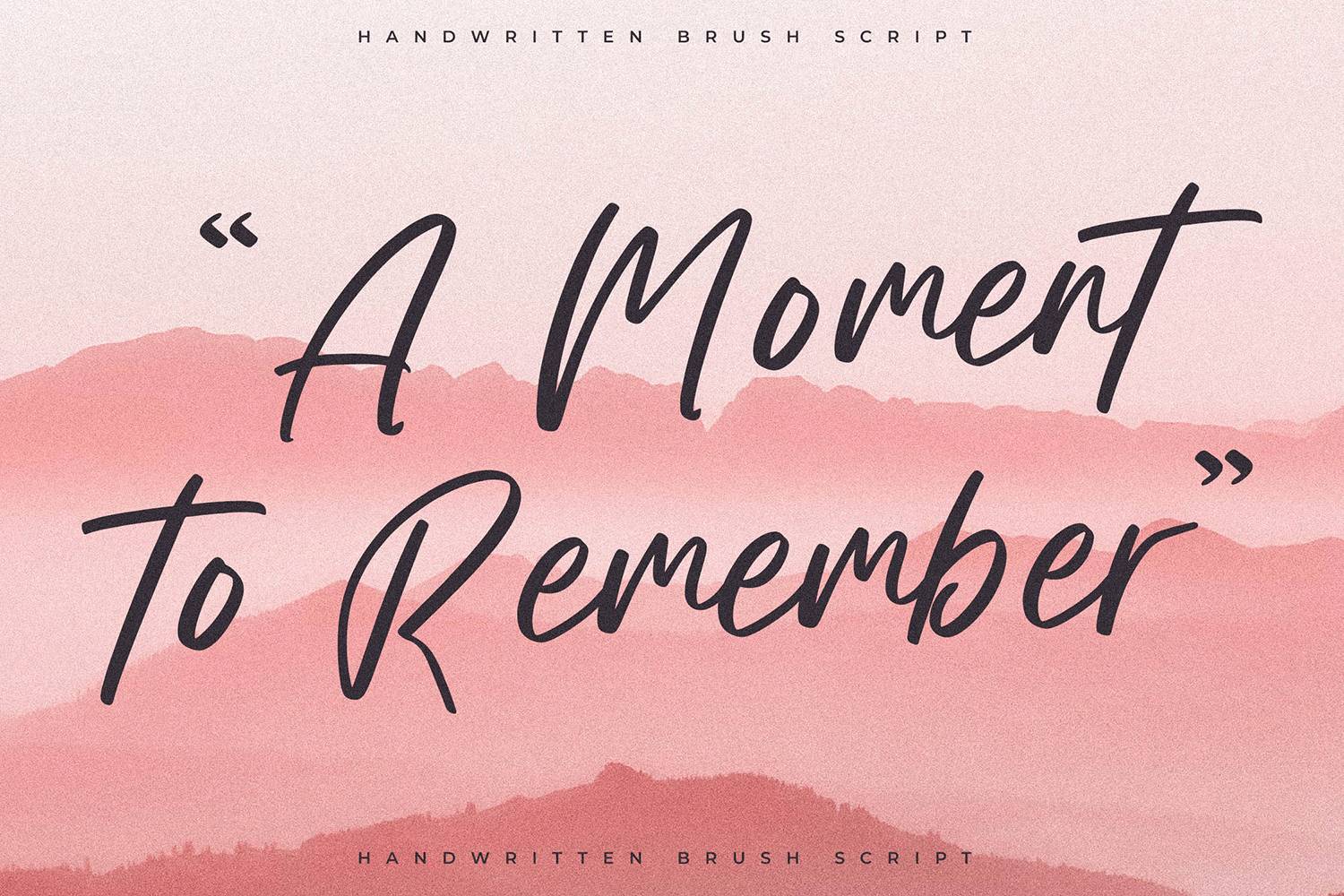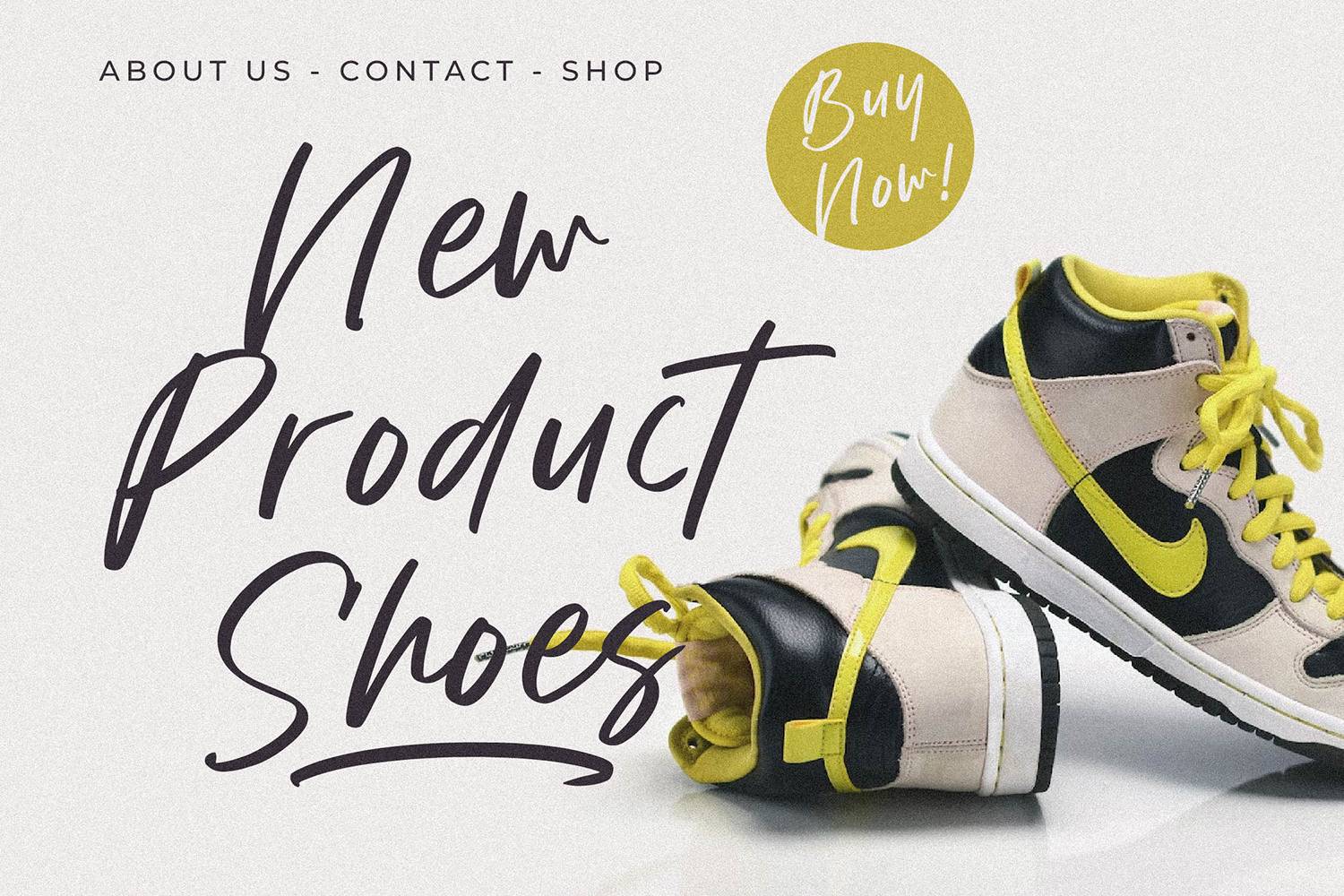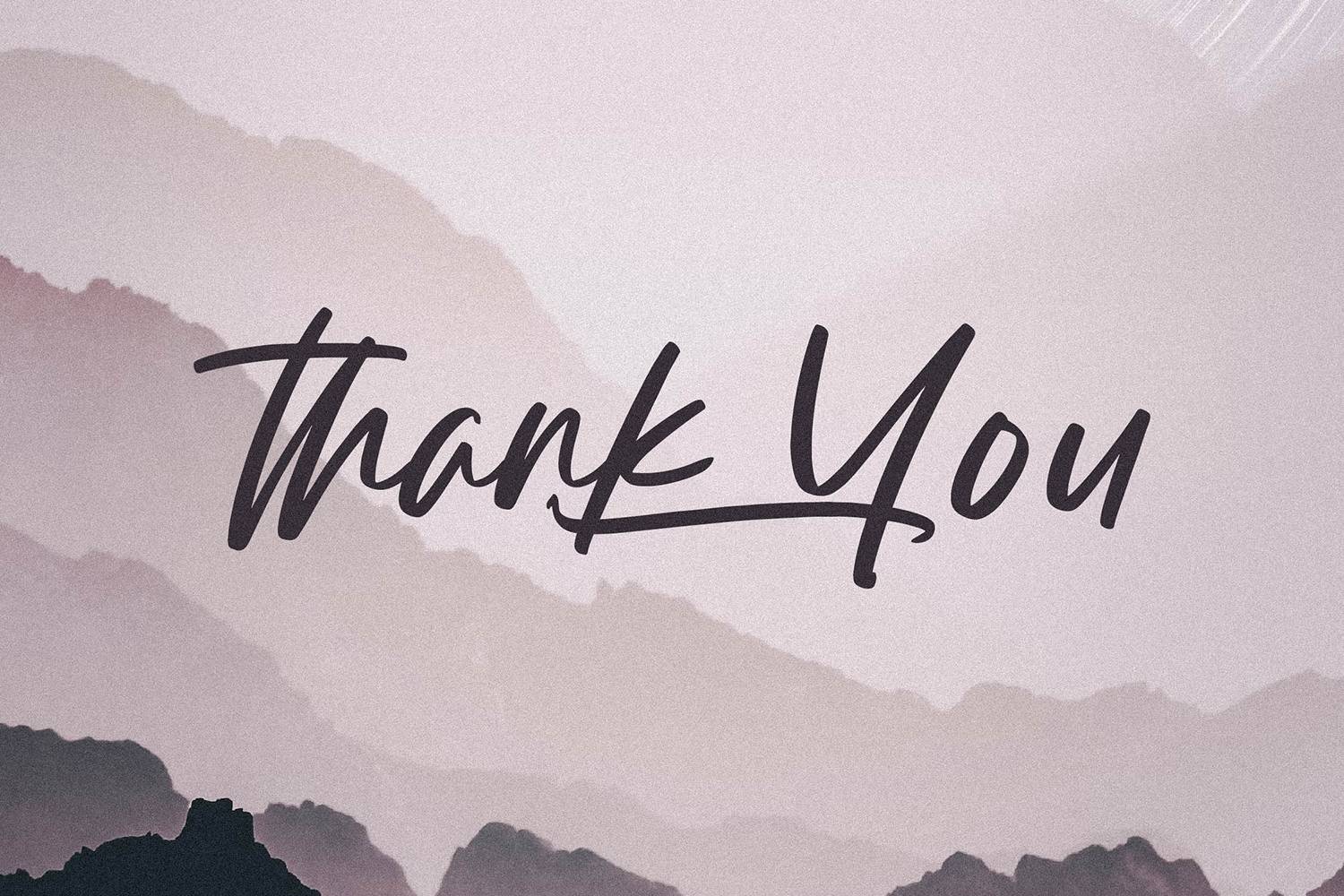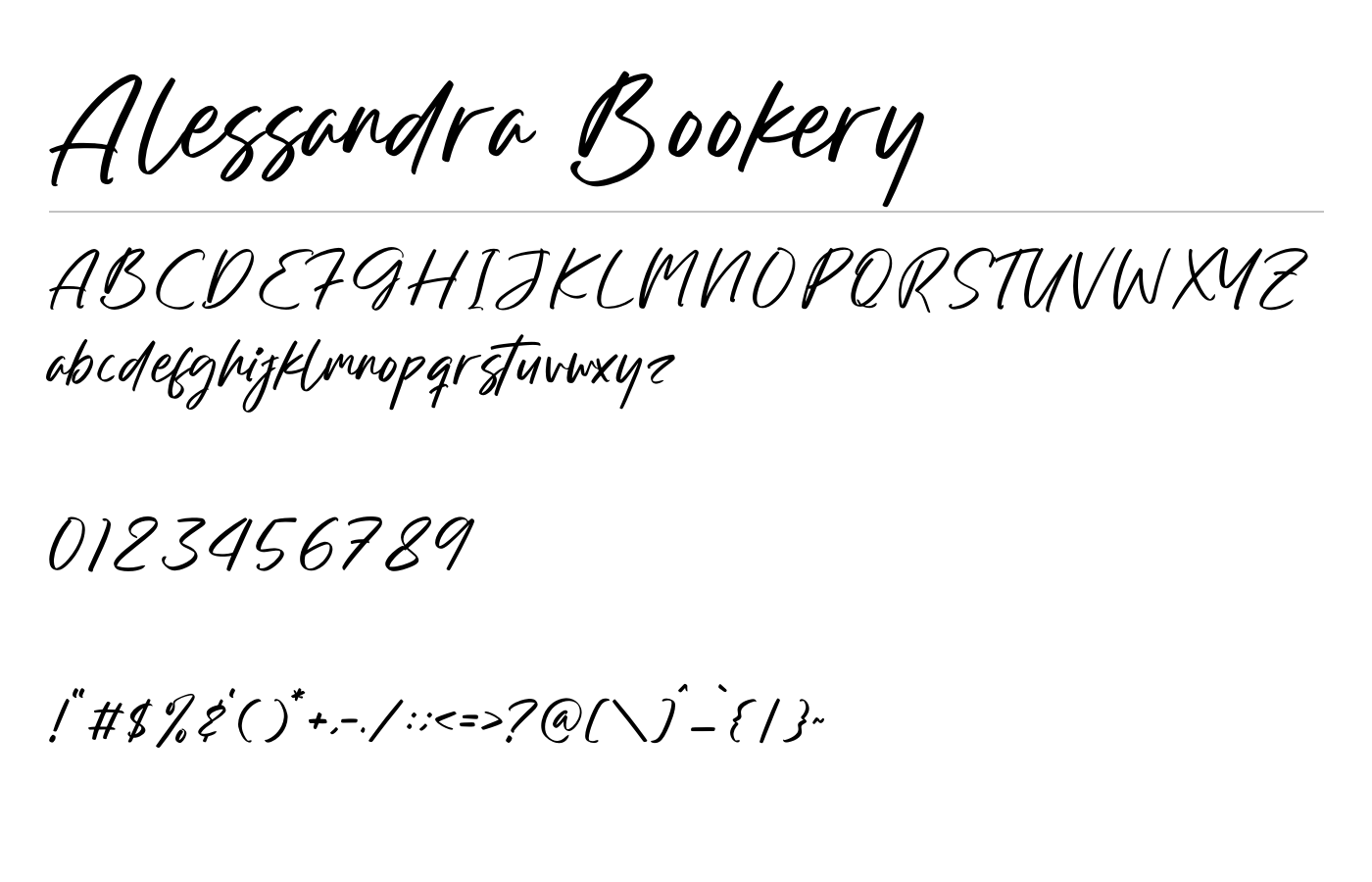
Alessandra Bookery is a lively and elegant handwritten script font featuring a natural, brush-like texture with moderate contrast and fluid, graceful strokes. Its tall, narrow letterforms and distinctive character shapes evoke a casual yet sophisticated feel, making it perfect for creative branding, invitations, and expressive headlines that want to combine warmth with style. This font works beautifully in designs seeking a personal, artistic touch without sacrificing readability.
Alessandra Bookery Font
About Alessandra Bookery Font